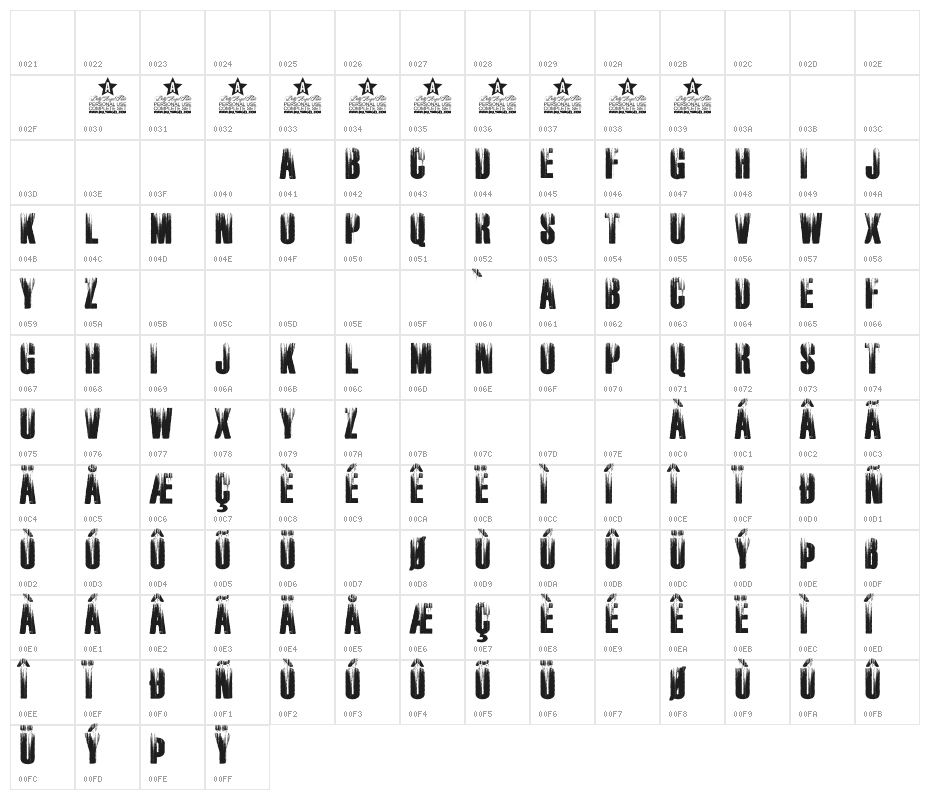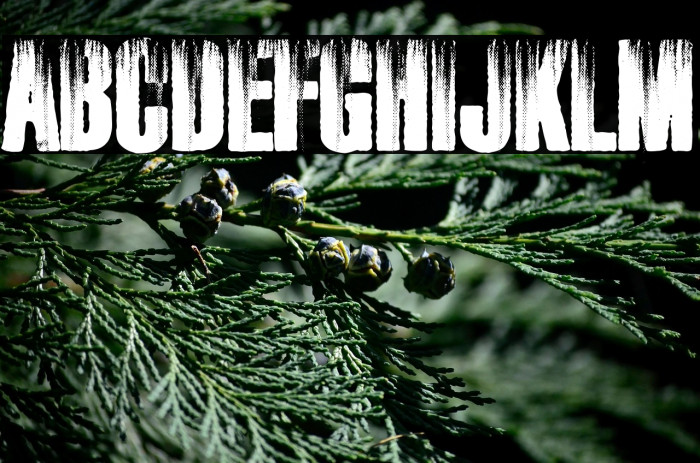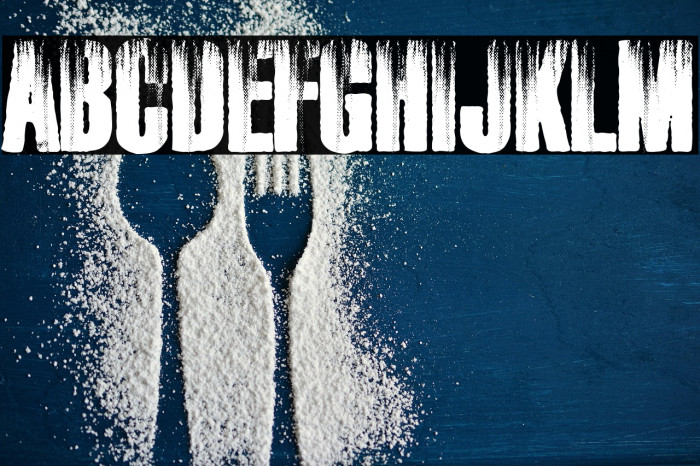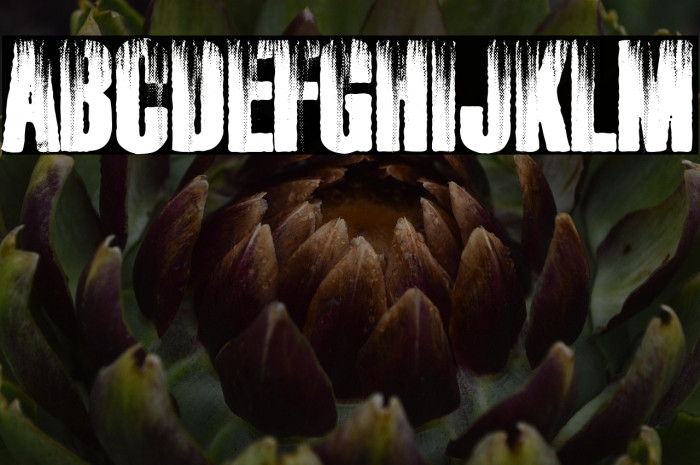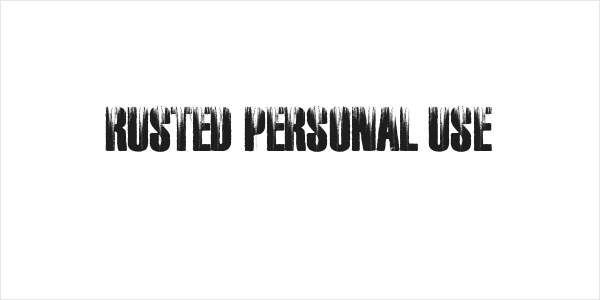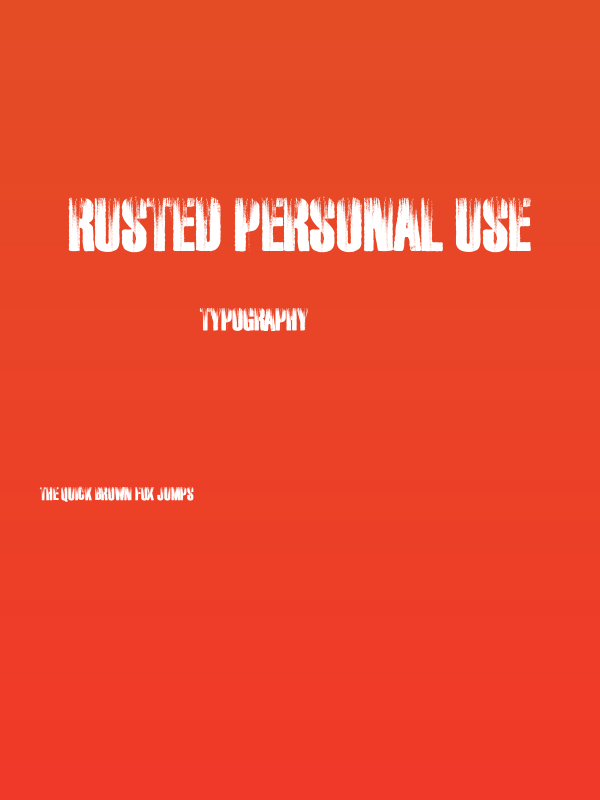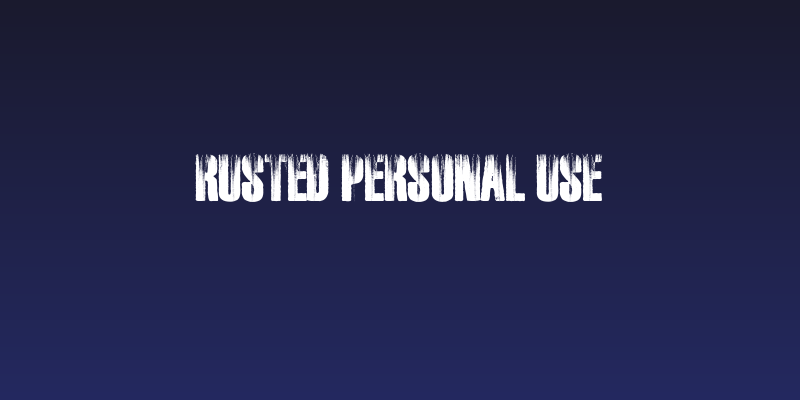
RUSTED PERSONAL USE Font
RUSTED PERSONAL USE Description
This font features a bold and distressed style, characterized by its rough, textured appearance. The letters are heavily weighted and have a grunge effect that gives them a worn, rustic look. The edges are uneven, contributing to the overall rugged aesthetic. This font is particularly eye-catching and commands attention, making it suitable for designs that require a strong visual impact. The uppercase letters are prominent, and the font lacks lowercase characters, emphasizing its bold and striking nature. The distressed texture adds a sense of depth and dimension, making it ideal for projects that aim to convey a vintage or industrial feel.
| Overall Style | Vintage, Industrial |
| Proposed Projects | Ideal for posters, album covers, branding for vintage or industrial-themed products, and any design requiring a strong, impactful visual element. |